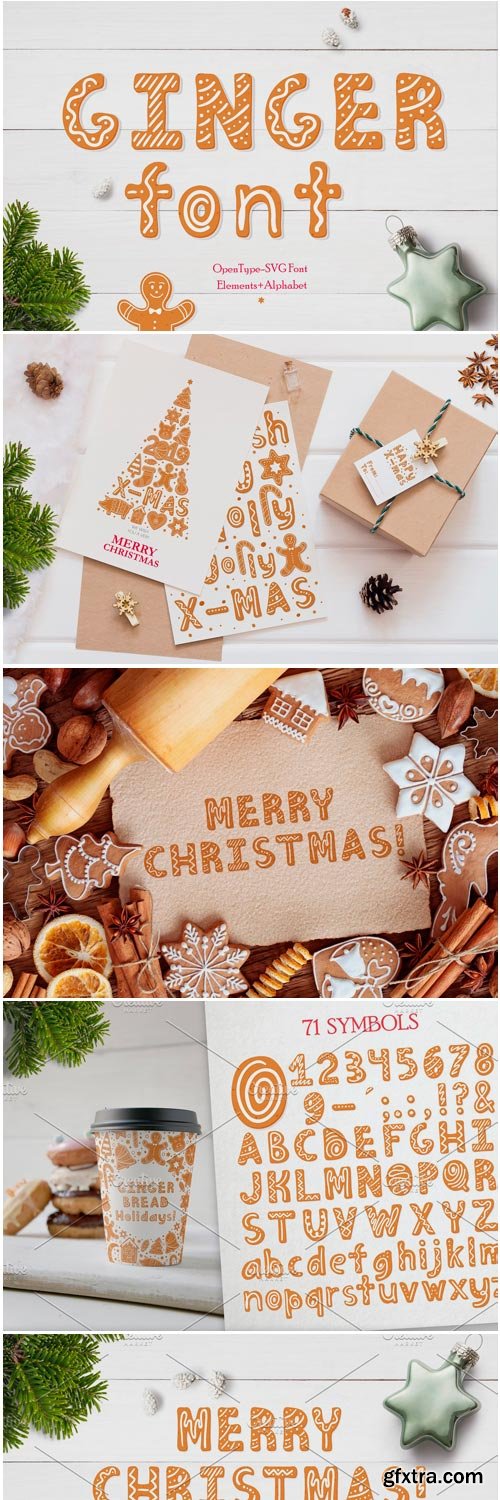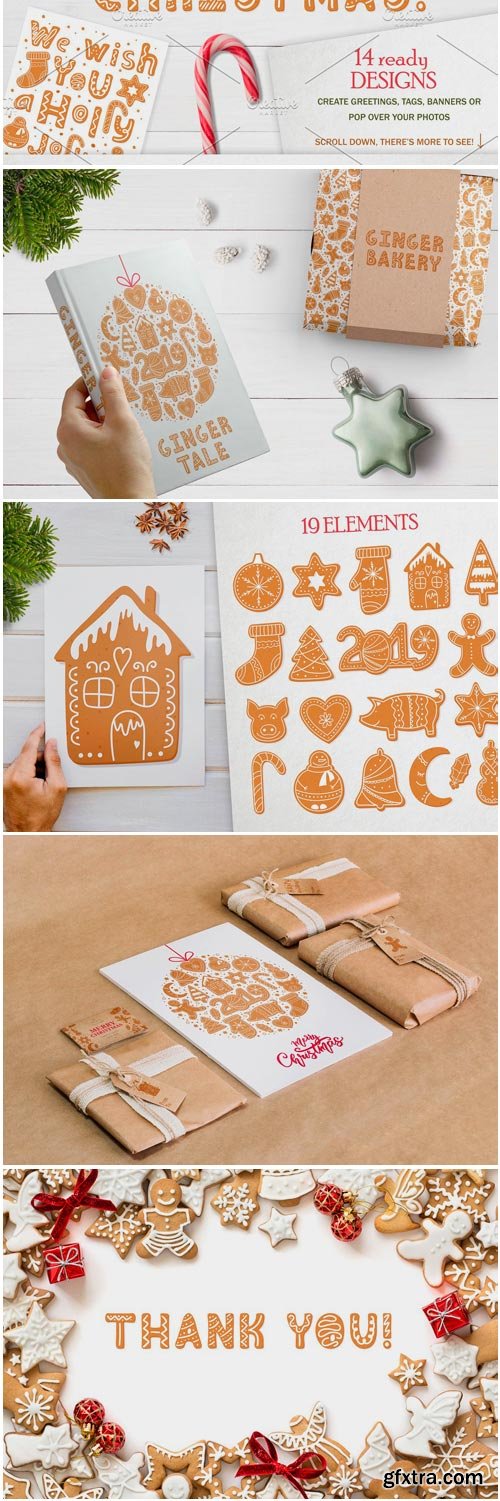
Gingerbread font is a color SVG font that was created as gingerbread cookies. Gingerbread font requires Photoshop CC 2017 or Illustrator CC 2018 (or newer) to use. Illustrator CC 2017, Photoshop CC 2015 and older versions DO NOT support color fonts. In these apps, you will see a non-colored fallback version of the font.